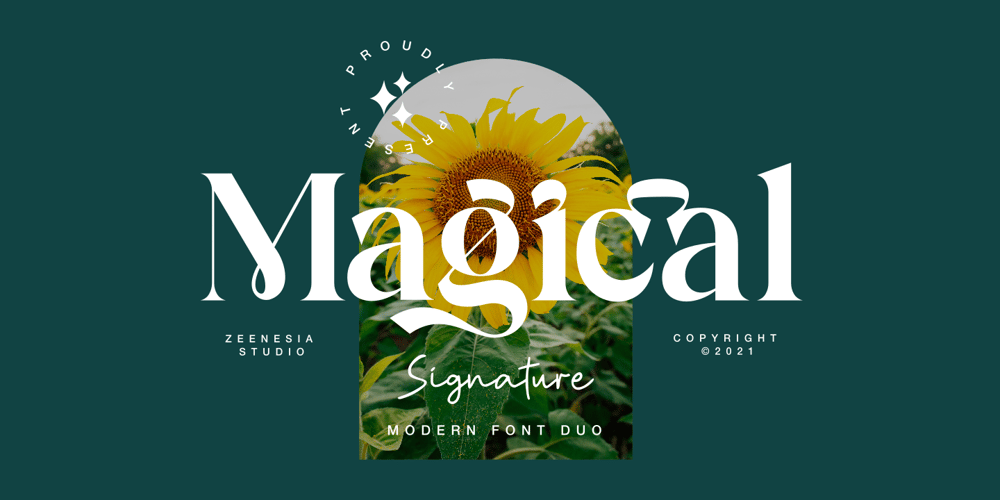
Magical Signature Font Family was designed by Doni Purwoko and published by Zeenesia Studio. Magical Signature contains 2 styles and family package options. Magical Signature are Font duo that includes a serif typeface and signature script. Display Serif inspired by famous logo, This typeface has been made carefully to make sure its premium quality and luxury feel. suitable for your design project business, like logo branding, wedding invitation, typhography wedding, quotes text, magazine, or anything do you want.